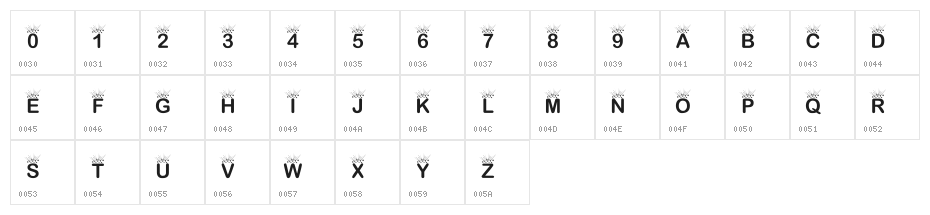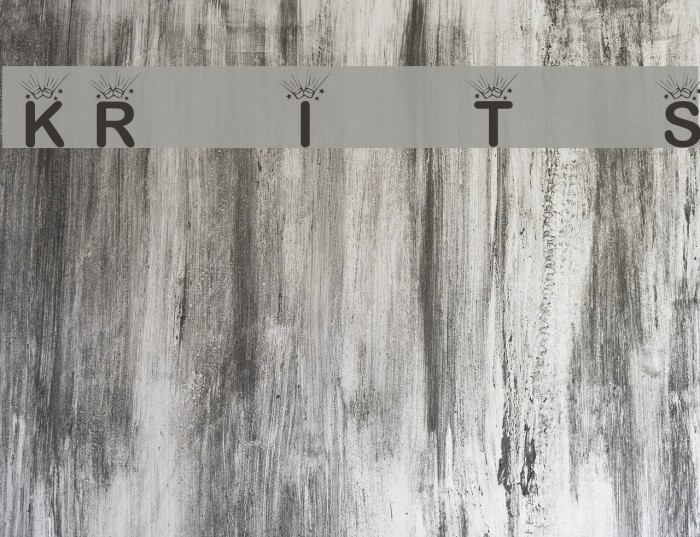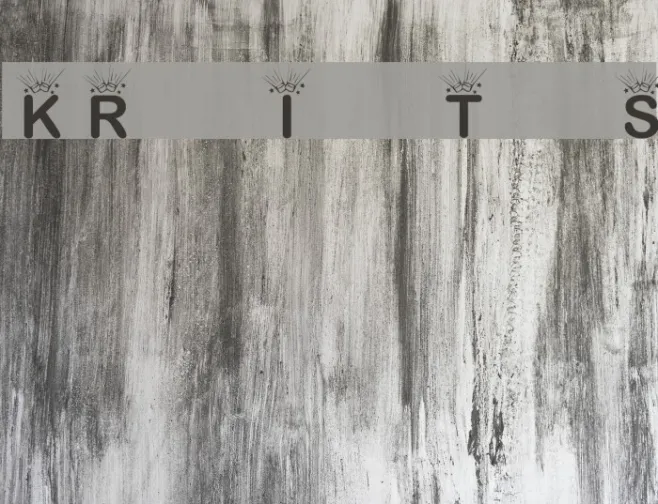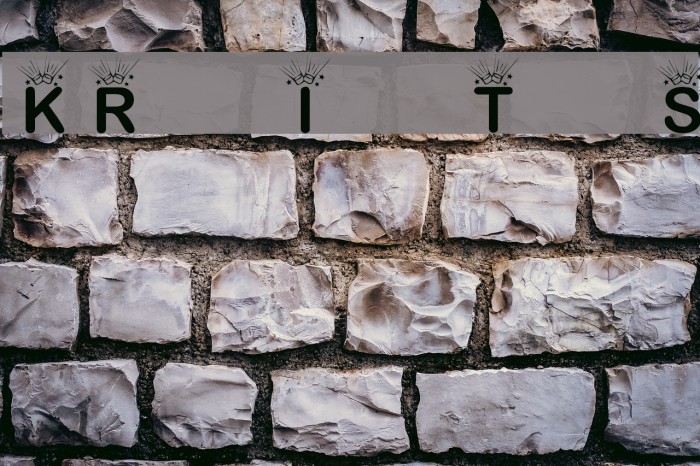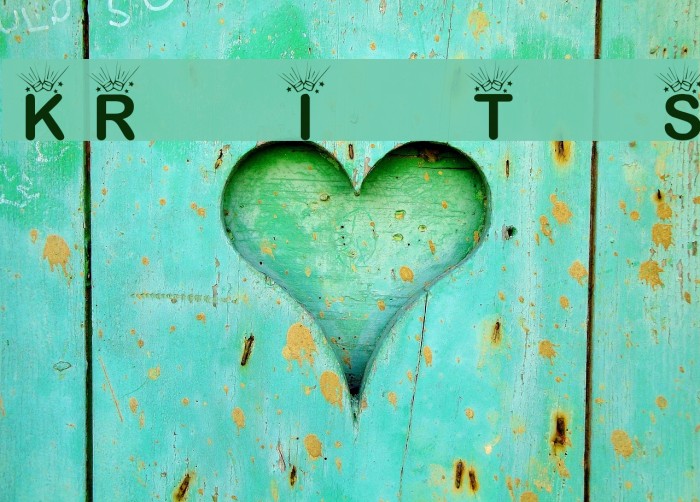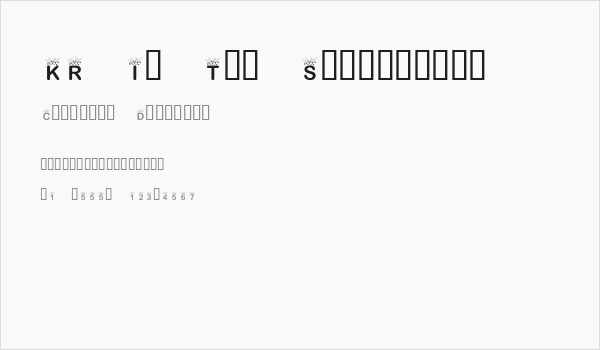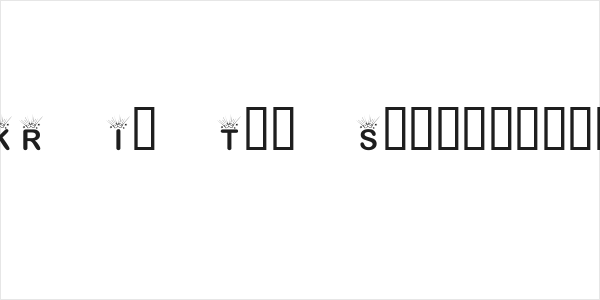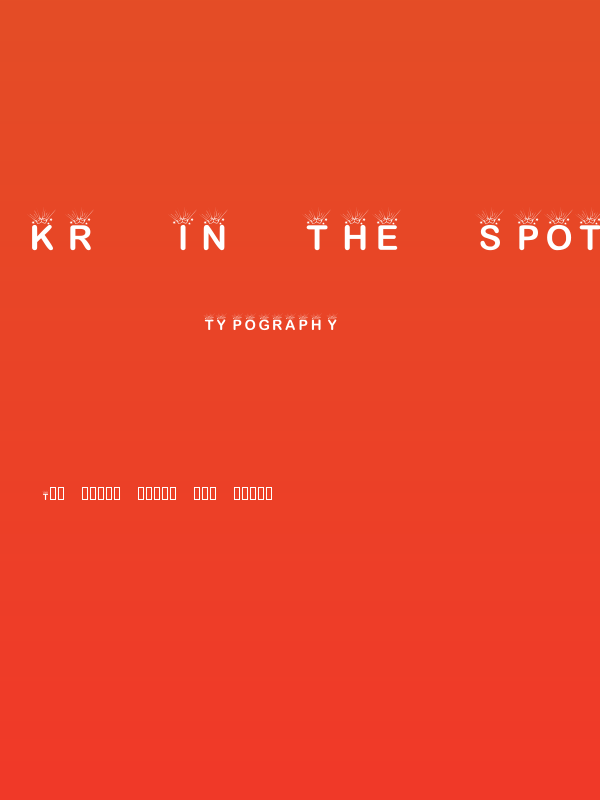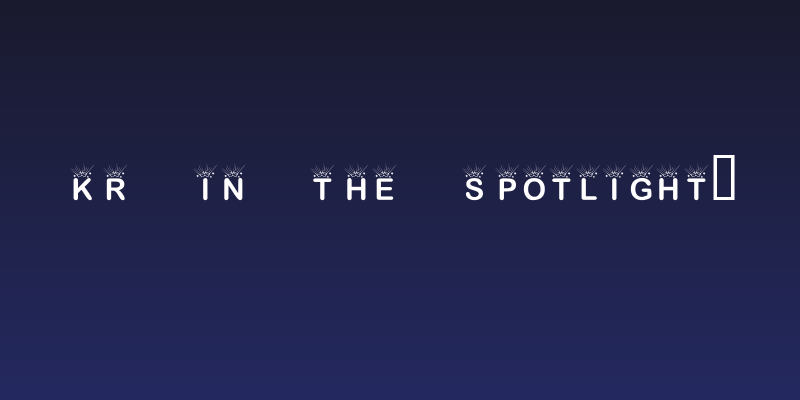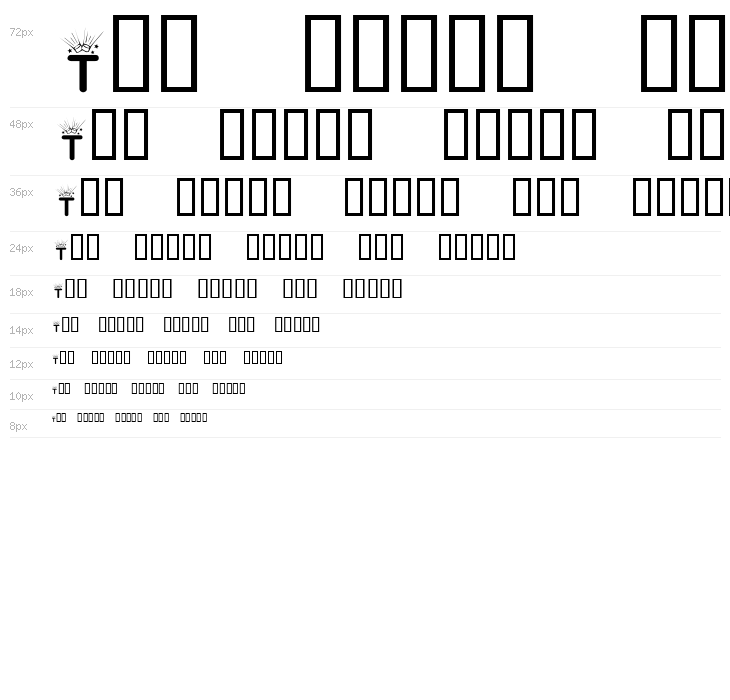
KR In The Spotlight! Font
KR In The Spotlight! Description
This font features a playful and decorative style, characterized by a unique spotlight motif above each character. The letters are bold and rounded, offering a friendly and approachable appearance. The consistent design across both uppercase and lowercase letters, as well as numbers, ensures a cohesive look. The spotlight element adds a whimsical touch, making it suitable for creative and fun projects. The font maintains a uniform weight and width, providing a balanced and harmonious visual experience.
| Proposed Projects | Ideal for children's book covers, party invitations, playful branding, and creative posters. |